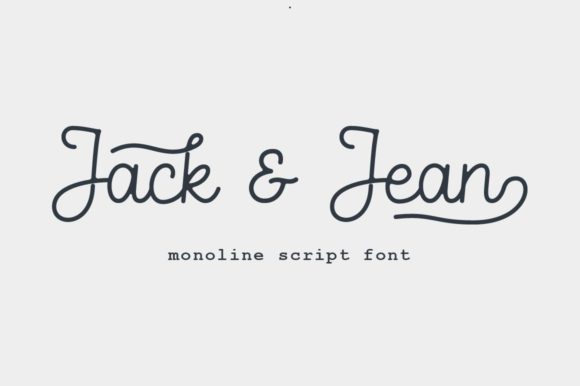
Immerse yourself in the world of charm and elegance with Jack & Jean Script Font, a captivating creation from the mind of priaadmaja. This modern and authentic script font is not just a collection of letters; it's an expression of individuality and creativity waiting to adorn your digital masterpieces.
With its graceful curves, playful swashes, and captivating ligatures, Jack & Jean Script Font is a true feast for the eyes. Each character dances across the screen, telling a story of artistry and passion. From the whimsical strokes of the lowercase letters to the sweeping grandeur of the uppercase, this font exudes a personality that will leave you breathless.
But Jack & Jean Script Font is more than just visually stunning; it's also incredibly versatile. Its ability to effortlessly blend with various design styles makes it the perfect choice for a wide range of projects. Whether you're crafting a heartfelt invitation, designing a captivating logo, or creating social media posts that pop, Jack & Jean Script Font will elevate your work to new heights of sophistication and style.
Step into a world of imagination and let Jack & Jean Script Font guide you. Its intuitive design makes it easy to use, even for beginners. Unleash your creativity and let the words flow effortlessly from your fingertips, knowing that each letter will be a perfect reflection of your unique style.